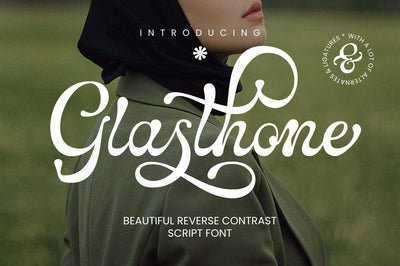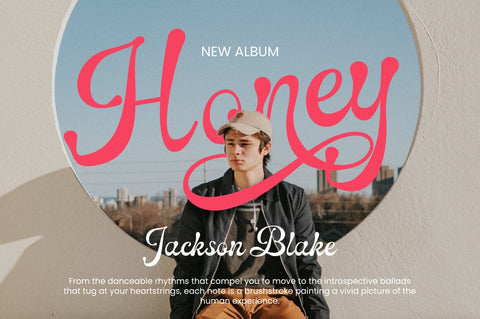
Glasthone Calligraphy Font
Glasthone Calligraphy Font is a handcrafted brush font created with brushes and ink. This typeface is ideal for use in bold watercolor designs or handwritten styles, such as blog titles, posters, wedding elements, t-shirts, clothing, book covers, business cards, greeting cards, branding, merchandise, etc.